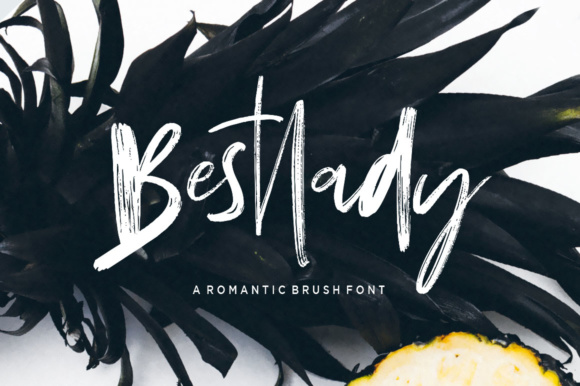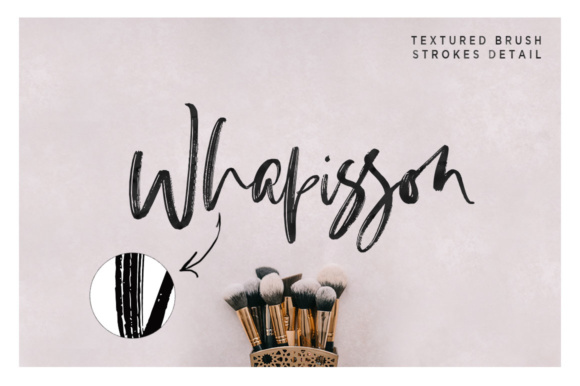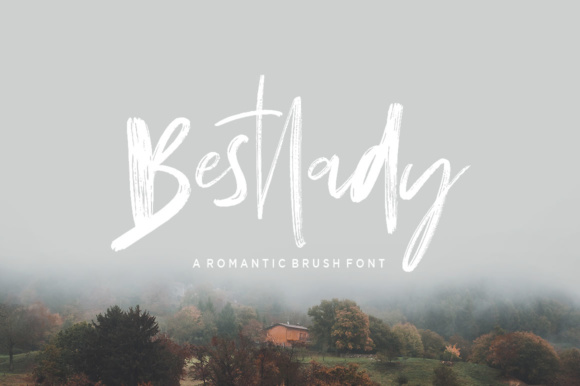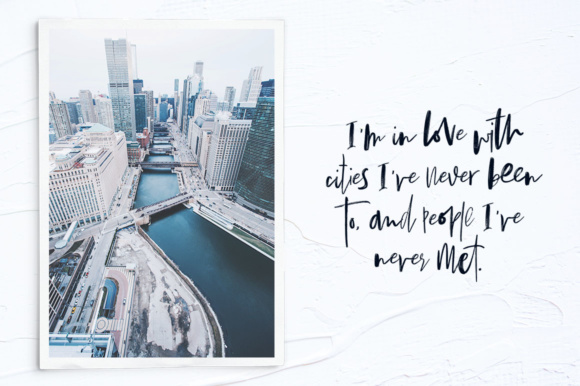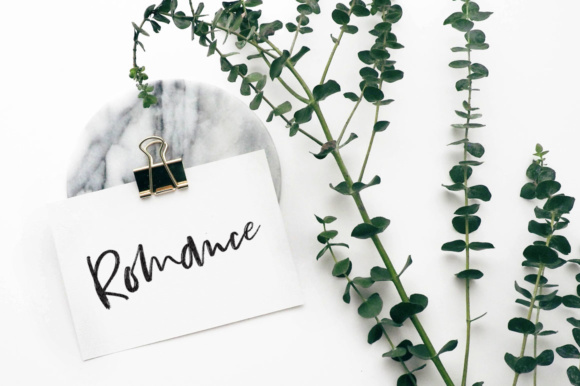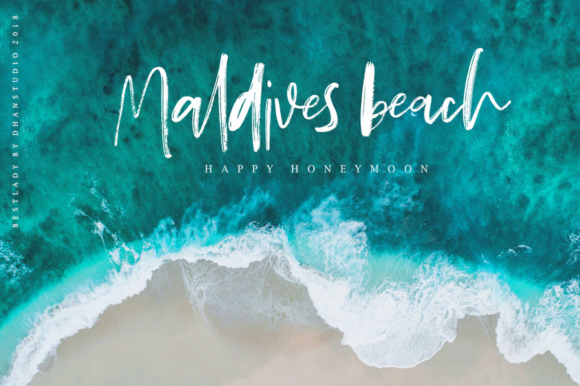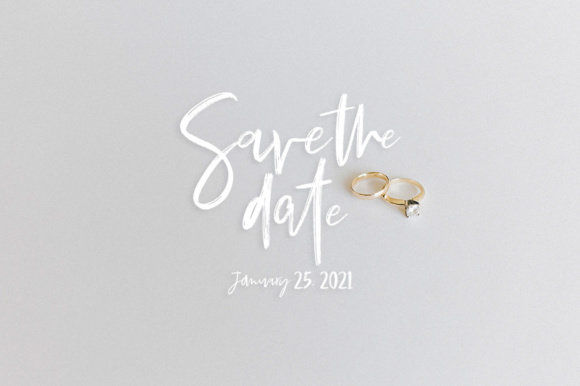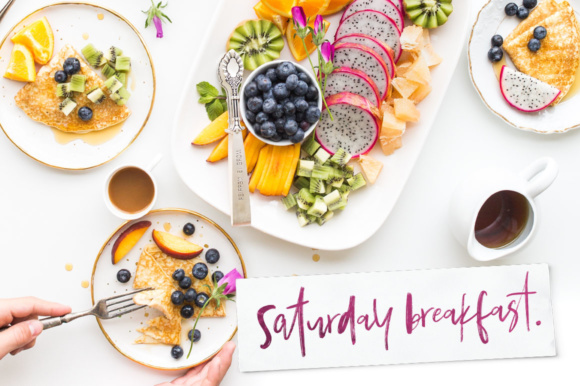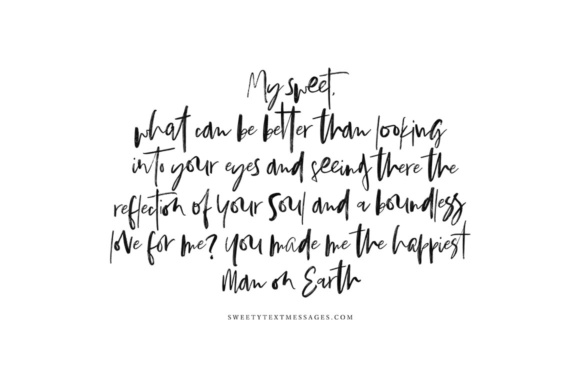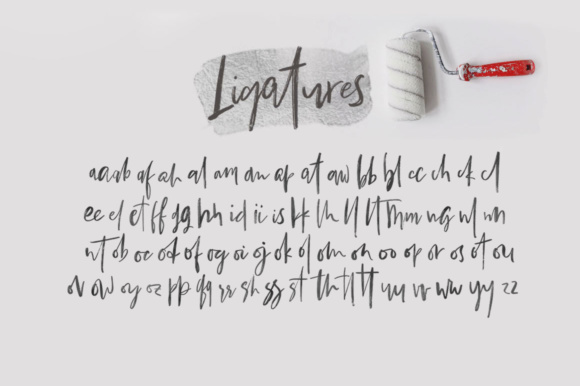
Bestlady Font
About Bestlady Font
Bestlady is a romantic textured brush font, perfectly crafted to give your designs a special and unique look. This font has tons of rustic charm, and can give your projects a fresh and modern look.